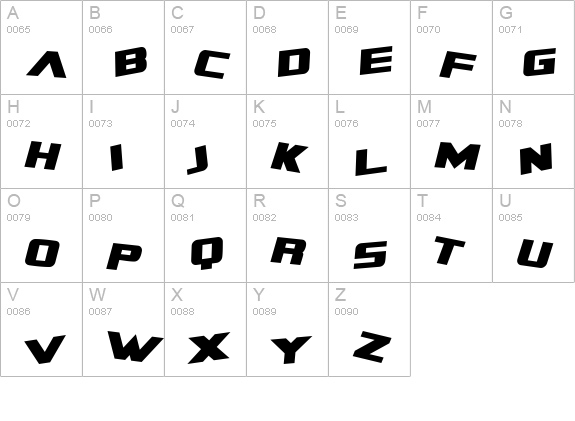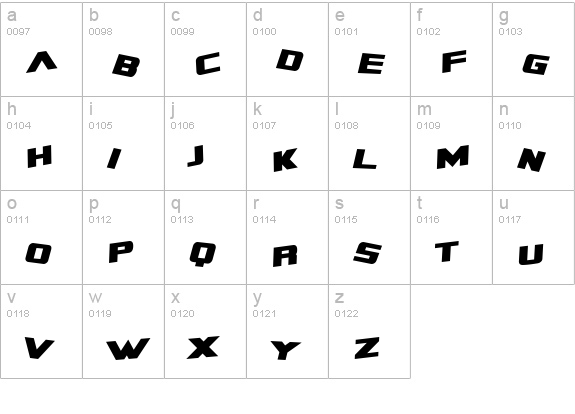
SF Zero Gravity Bold Italic Font Details
SF Zero Gravity Bold Italic is a strong, high-contrast, italic variant in the SF typeface family \xE2\x80\x94 well suited to headlines, attention-grabbing titles, and strong calls-to-action.
SF Zero Gravity Bold Italic is a captivating and dynamic font that effortlessly combines the sleekness of a bold weight with the added emphasis of italics. Designed to project a sense of futuristic elegance, this font is perfect for creating eye-catching headlines, attention-grabbing logos, and striking display materials. With its unique design elements and carefully crafted curves, SF Zero Gravity Bold Italic exudes a sense of weightlessness and forward-thinking innovation. Its bold strokes and italicized angles give your text a sense of motion, making it the ideal choice for projects that require a touch of dynamism and energy. This font is freely available to download at FontsMarket.com, making it easily accessible for designers and creatives alike. Whether you're a professional looking to elevate your designs or a hobbyist exploring new typography options, SF Zero Gravity Bold Italic allows you to unleash your creativity without any constraints. The versatility of SF Zero Gravity Bold Italic extends beyond its aesthetics. Its legibility and readability ensure that your message is conveyed with clarity and impact, even in smaller sizes. This makes it an excellent choice for a wide range of applications, including websites, advertisements, posters, and more. With SF Zero Gravity Bold Italic, you have the freedom to experiment and push the boundaries of design. Its bold and italicized variations allow for endless combinations and possibilities, enabling you to create truly unique and memorable visuals that stand out from the crowd. Whether you're aiming to evoke a sense of technological advancement, modernity, or simply want to add a touch of boldness to your designs, SF Zero Gravity Bold Italic is the perfect font choice. Download it freely at FontsMarket.com and unleash your creativity today.